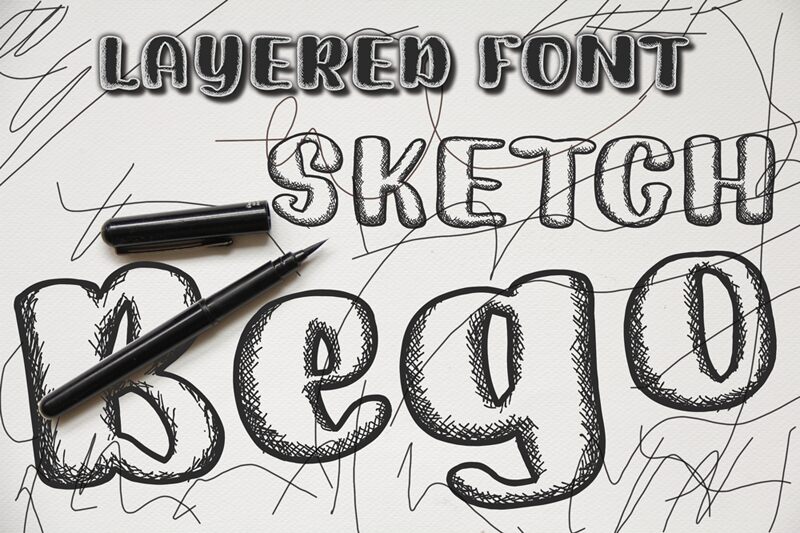
SketchBego
Sketch Bego, crafted by Royaltype, is a bold display font that exudes playful charm and cartoonish whimsy. Its hand-drawn aesthetic brings a sense of creativity and fun, making it perfect for projects that seek to evoke joy and imagination. The exaggerated weight of the letters provides a substantial presence, ensuring readability while adding an artistic flair.
This versatile typeface shines in children’s books, playful branding, comic strips, and any design work that benefits from a lively and engaging touch. Whether used for headlines or decorative purposes, Sketch Bego adds a unique personality to your text, drawing attention with its distinct style. Embrace the spirited essence of Sketch Bego to bring your designs to life with vibrant energy and visual interest.